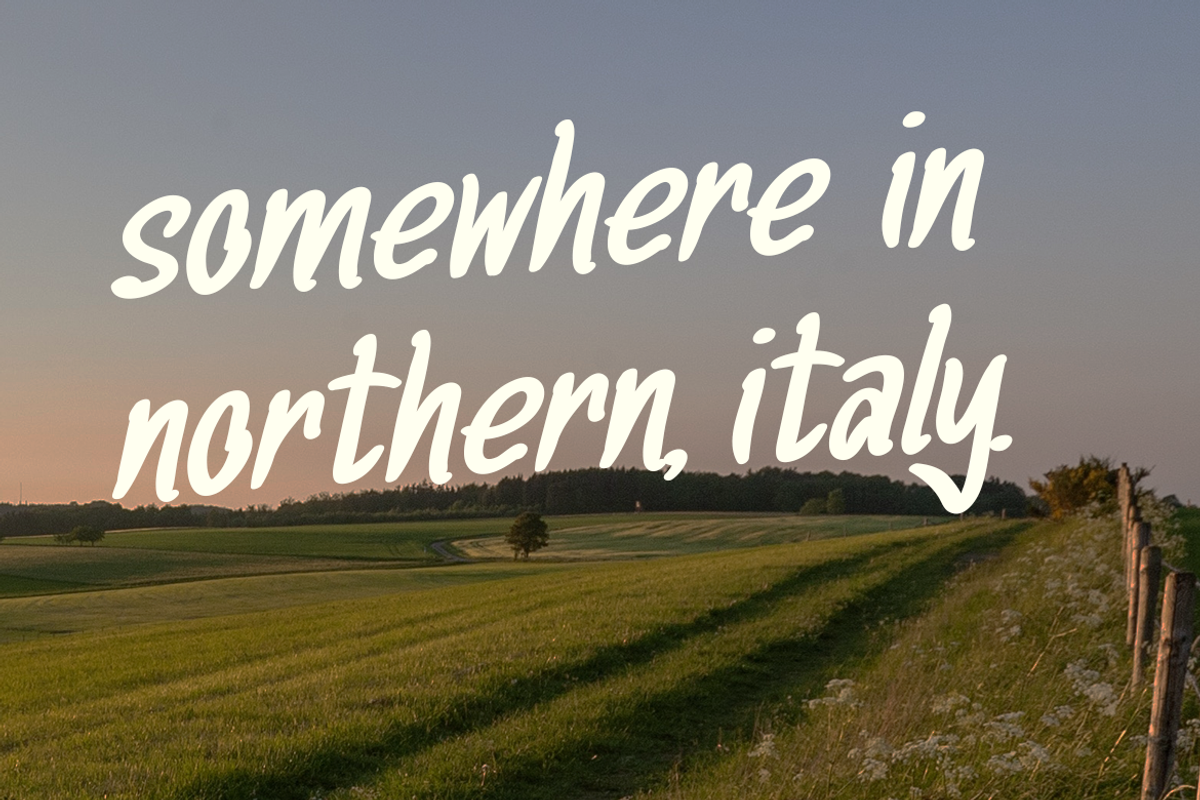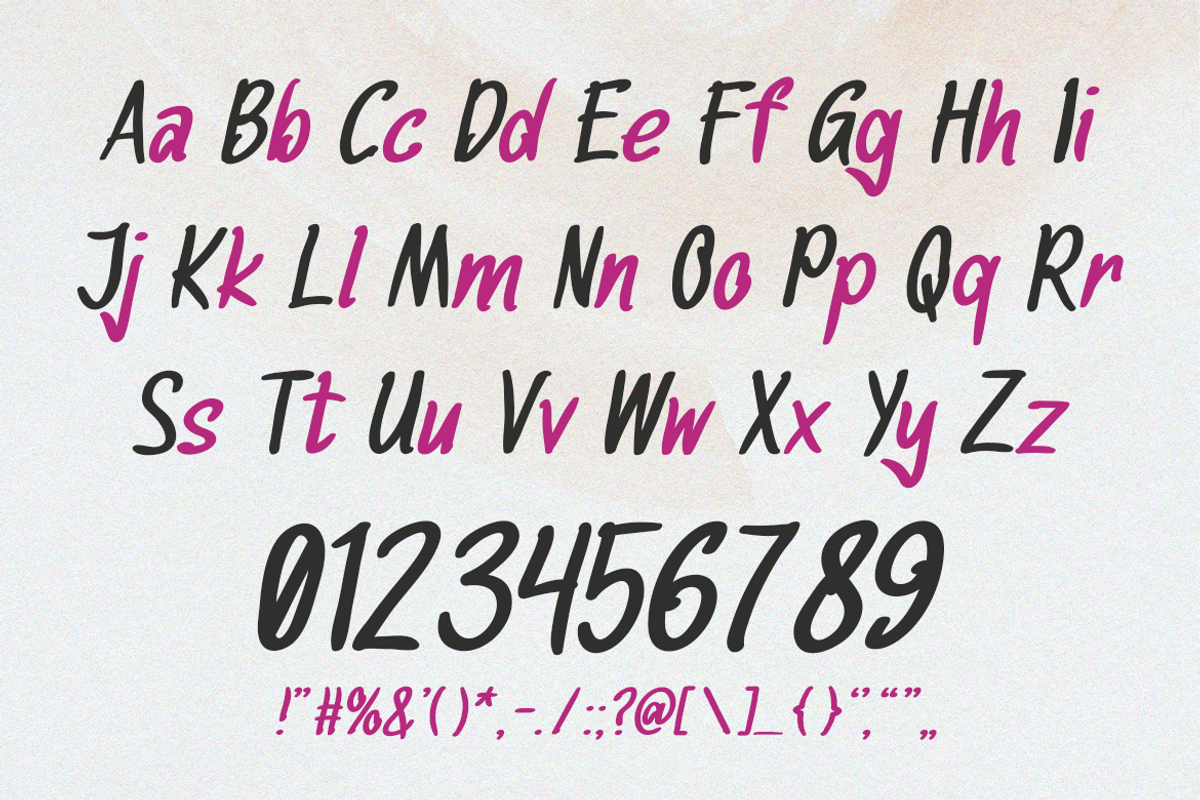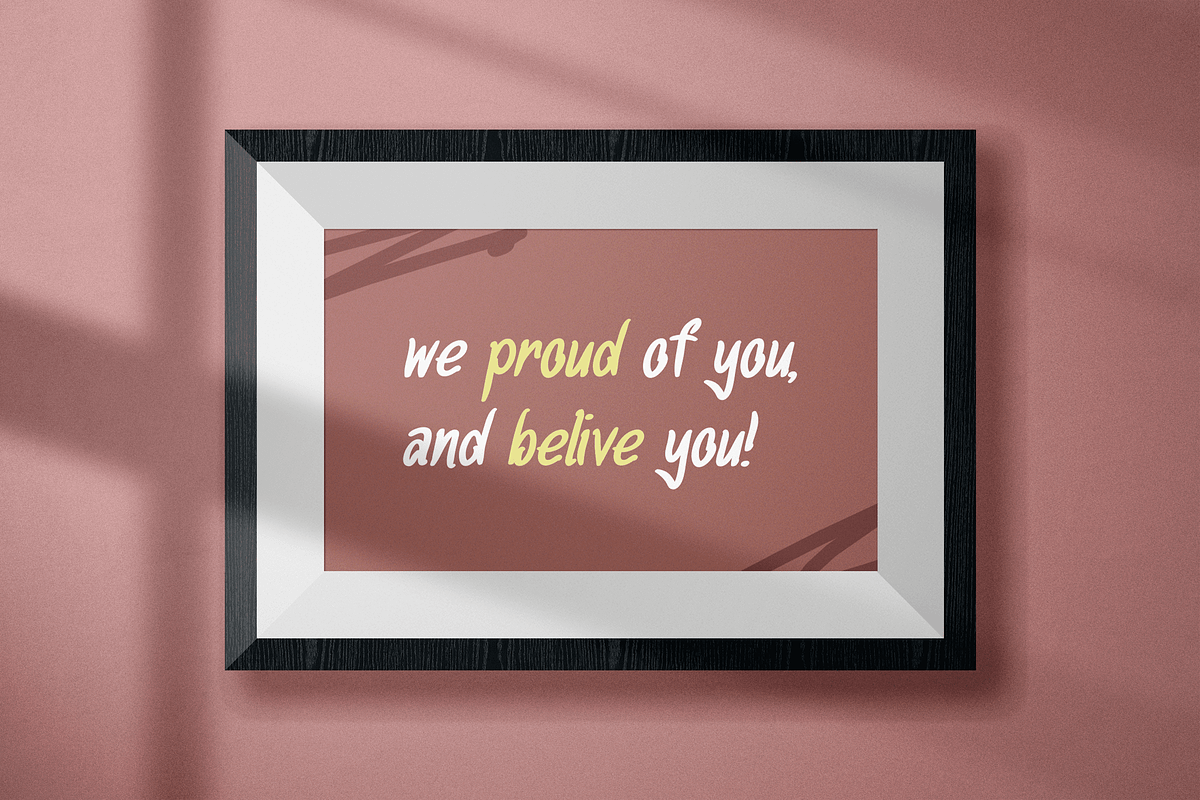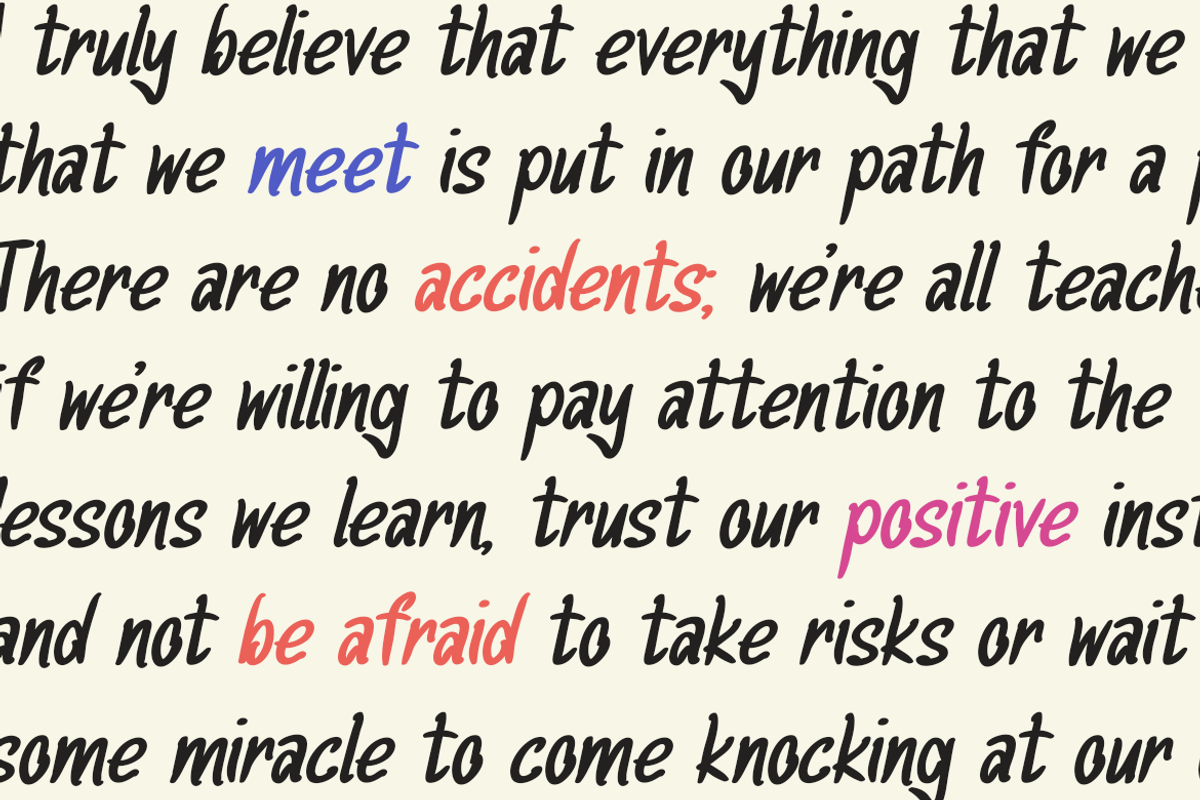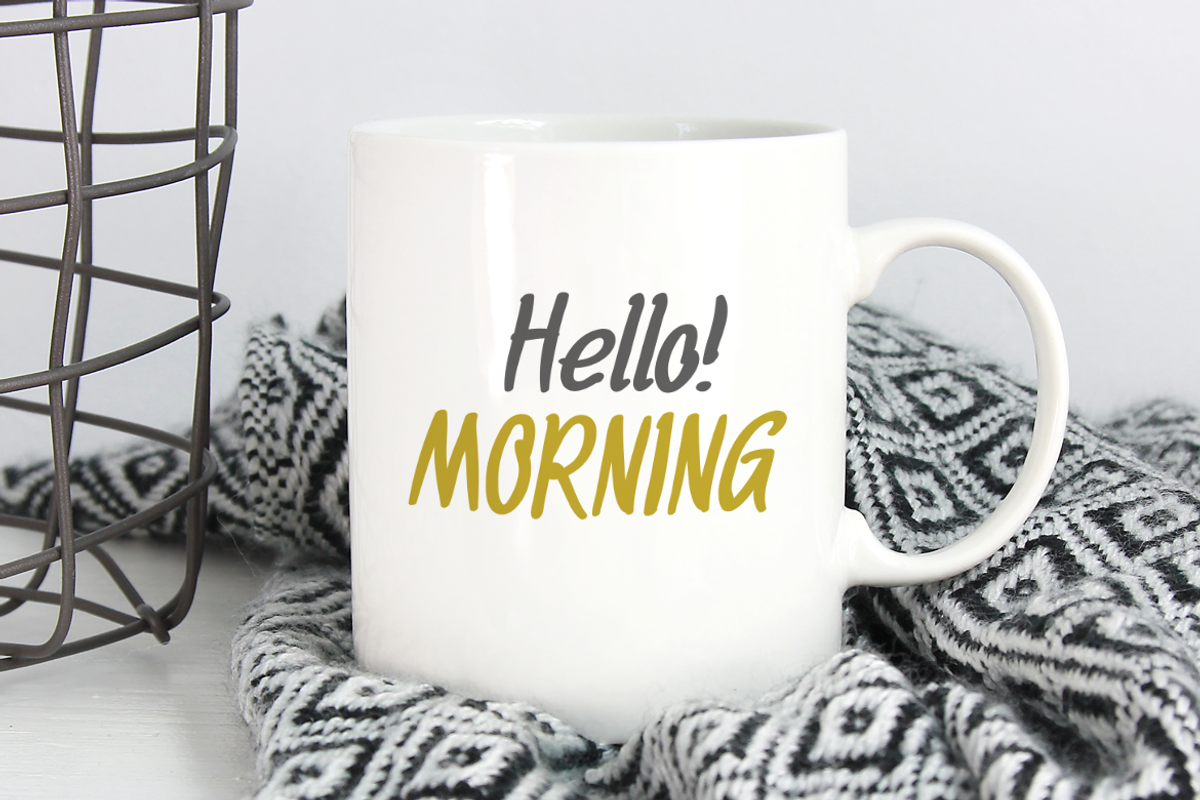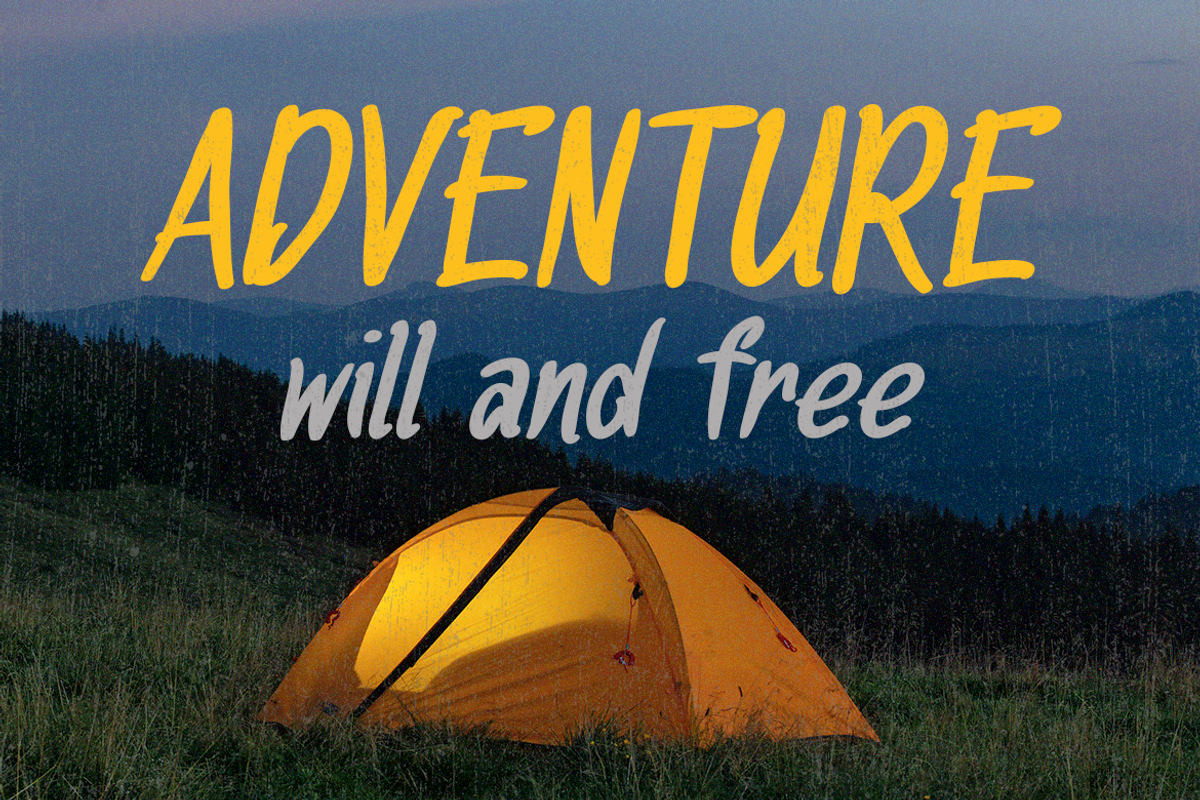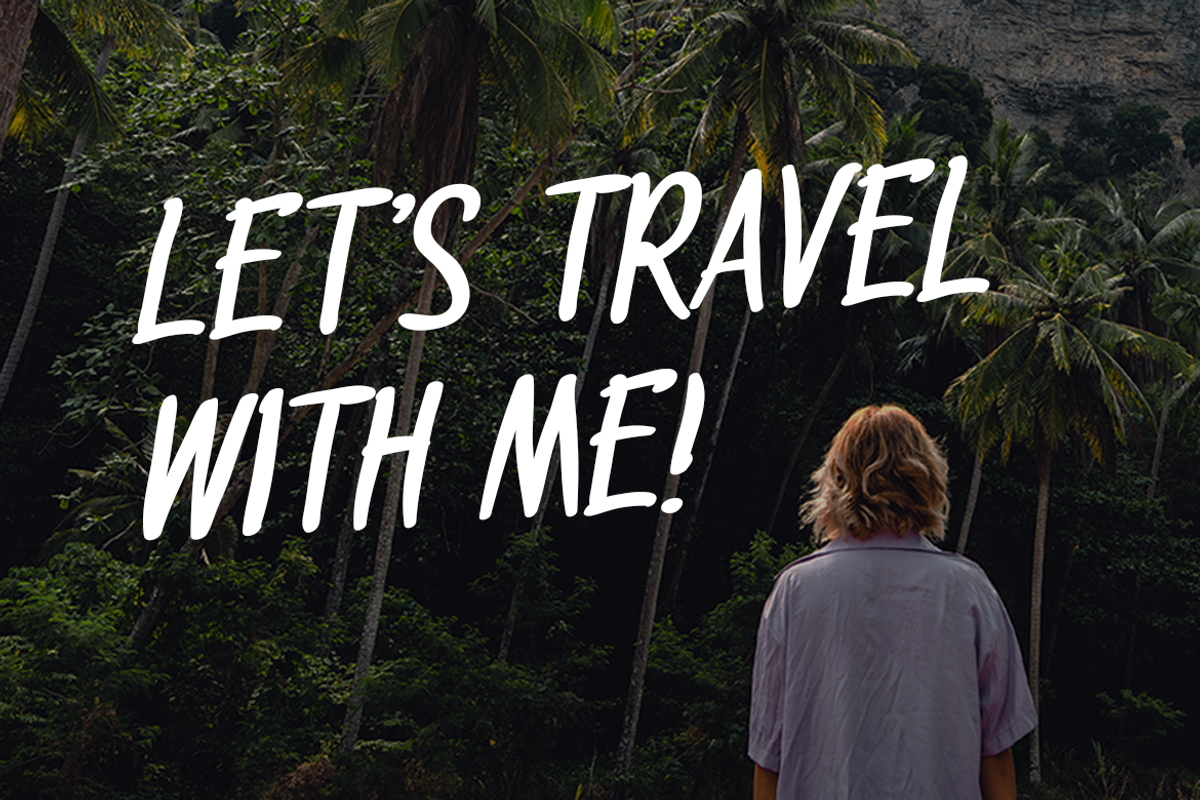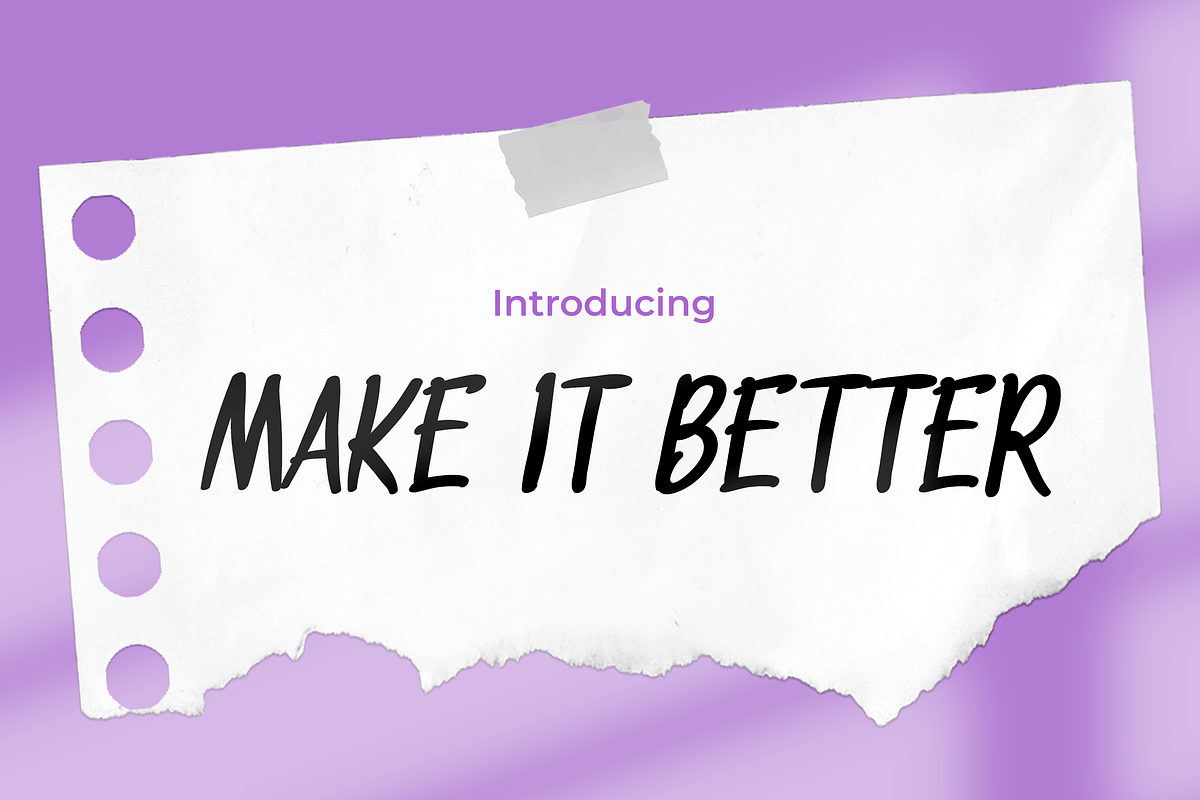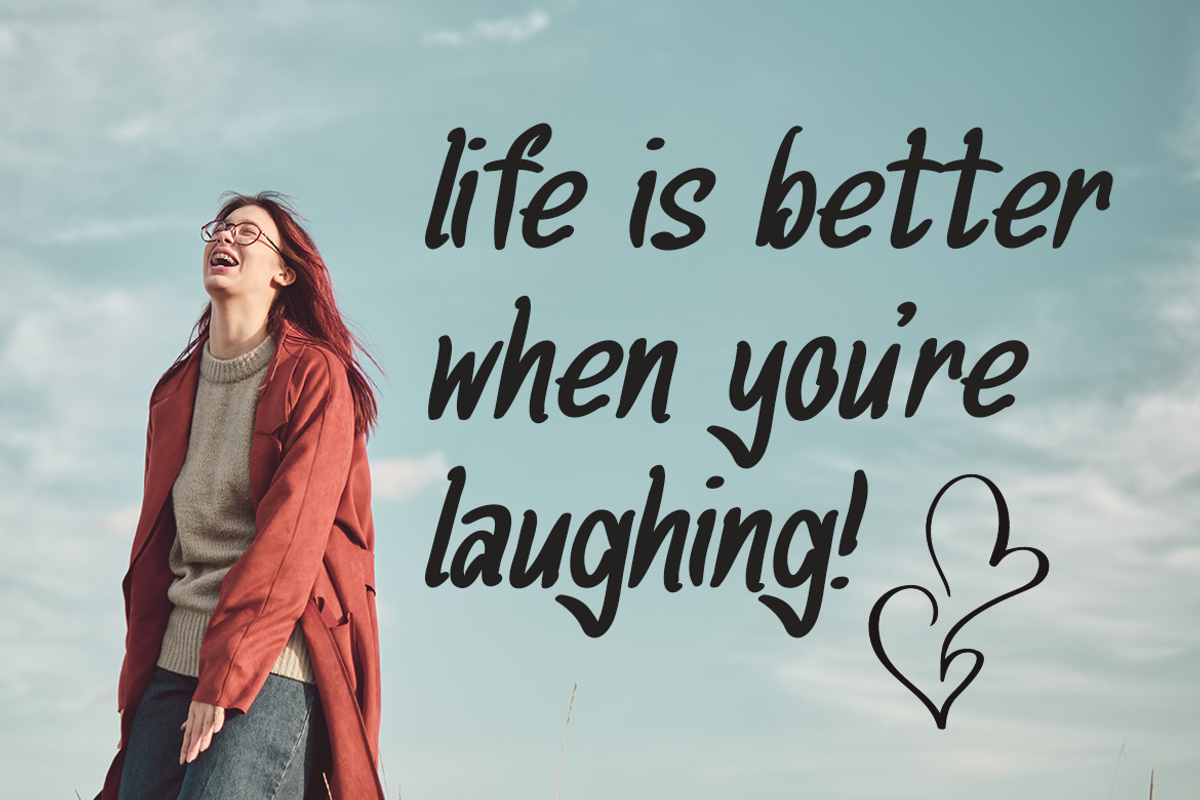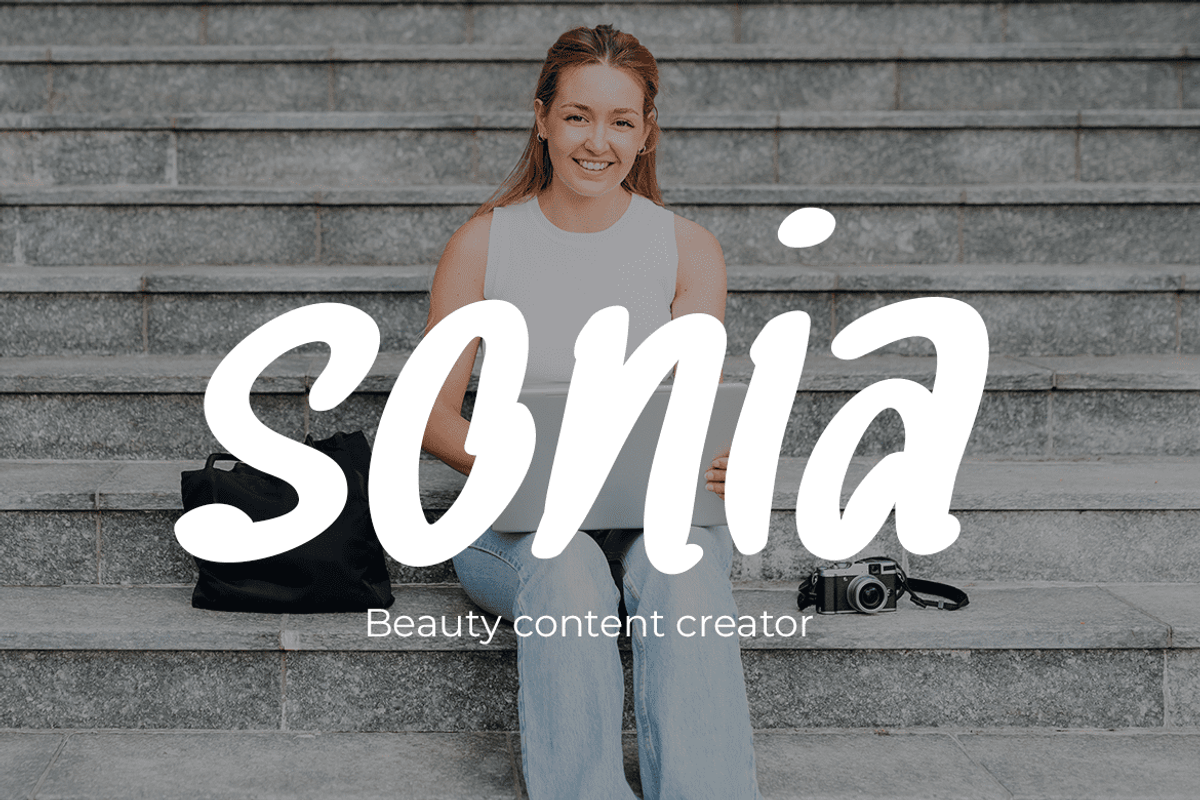
Make it Better
Make It Better – A Fusion of Elegance and Feminine Charm
Introducing “Make It Better,” a font that seamlessly blends elegance and feminine allure to elevate your design projects. This font not only exudes sophistication but also captures the essence of girlhood with its delicate strokes and graceful curves. Each letter is meticulously crafted to convey a sense of refinement and timeless beauty.
Whether you’re working on invitations, branding, or creative projects, “Make It Better” adds a touch of class that transforms your designs into a visual masterpiece. Elevate your creative expression and make every project better with the enchanting charm of this unique and elegant font.